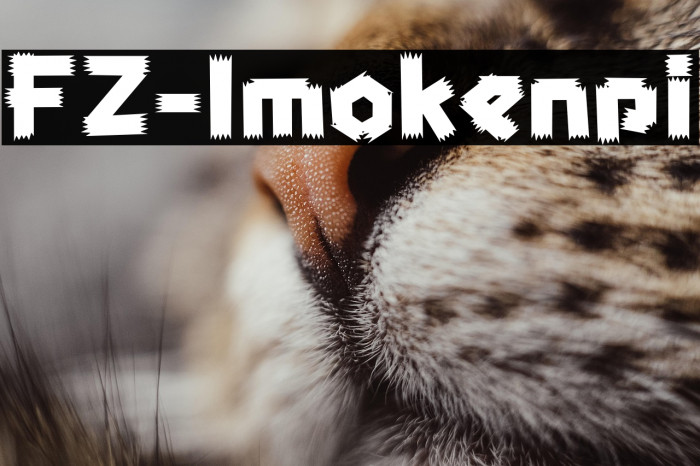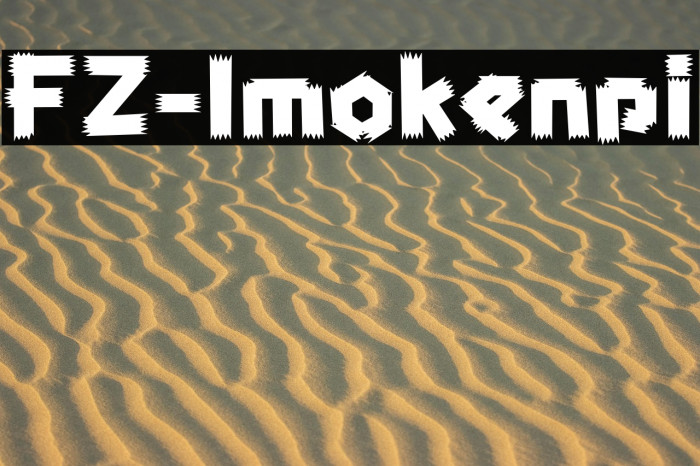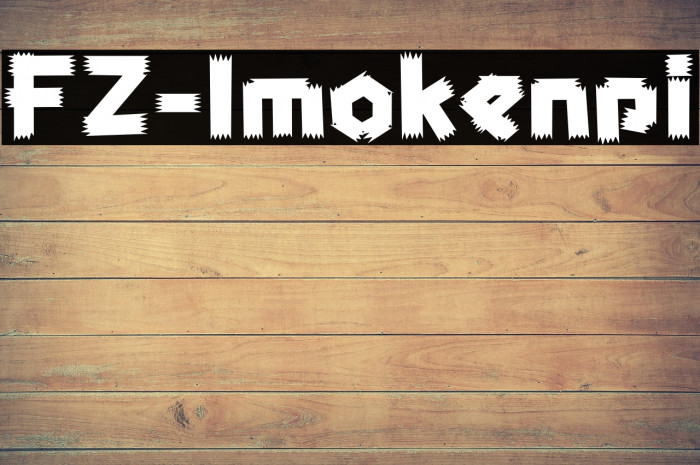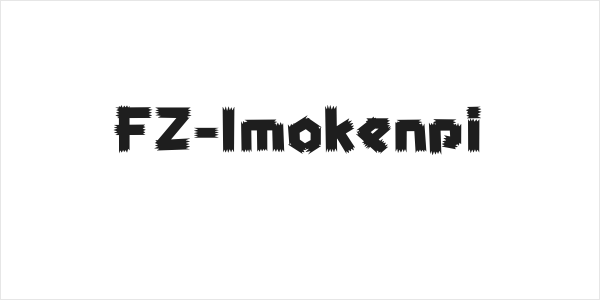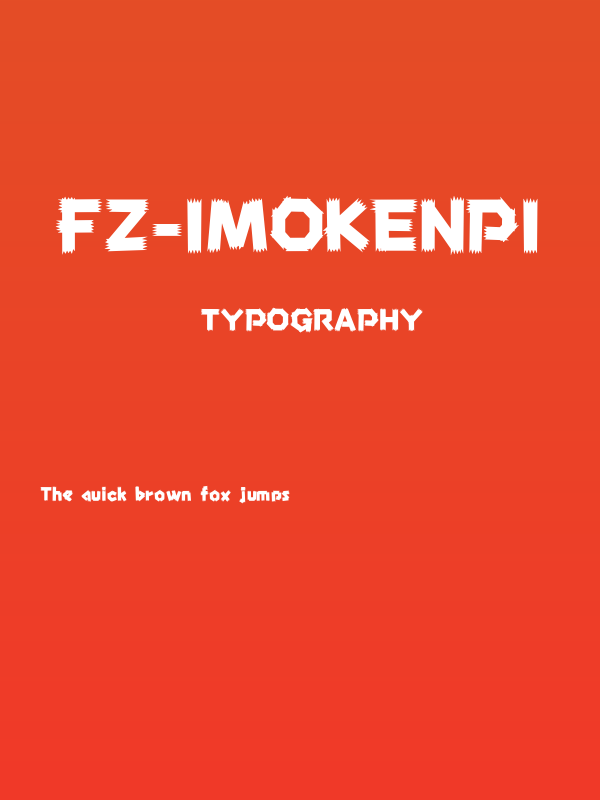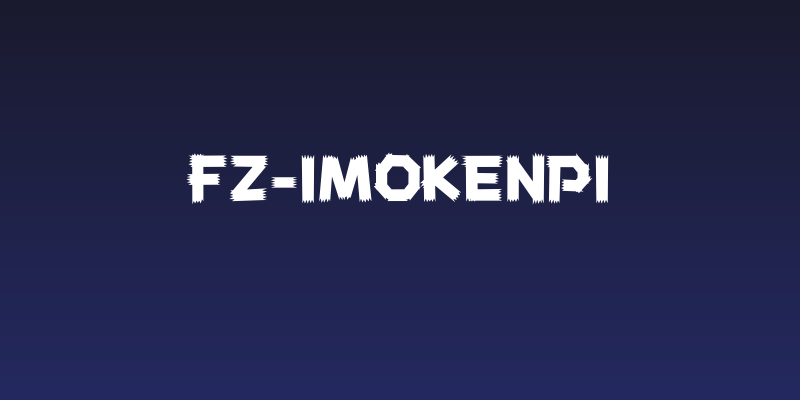
FZ-Imokenpi Font
FZ-Imokenpi Description
This font features a bold and jagged design, characterized by sharp, irregular edges that give it a dynamic and edgy appearance. The characters are constructed with a consistent thickness, creating a cohesive look despite the chaotic outline. The uppercase and lowercase letters maintain a uniform height, while the numbers and special characters follow the same stylistic theme. This font's unique style makes it stand out, ideal for projects that require a strong visual impact.
| Proposed Projects | Ideal for music album covers, event posters, video game titles, or any project needing a bold, edgy aesthetic. |